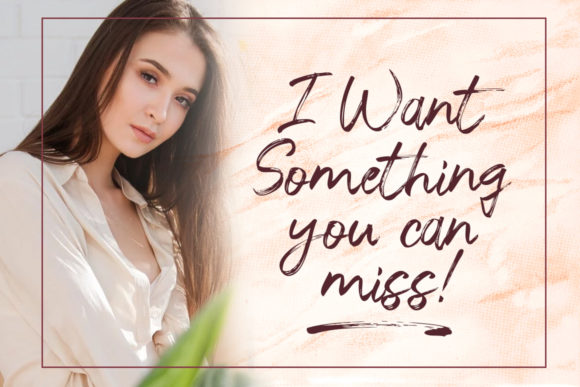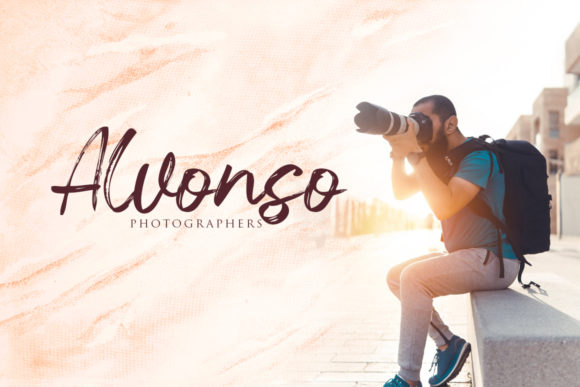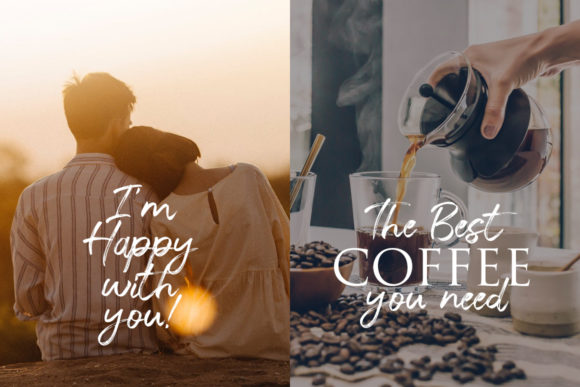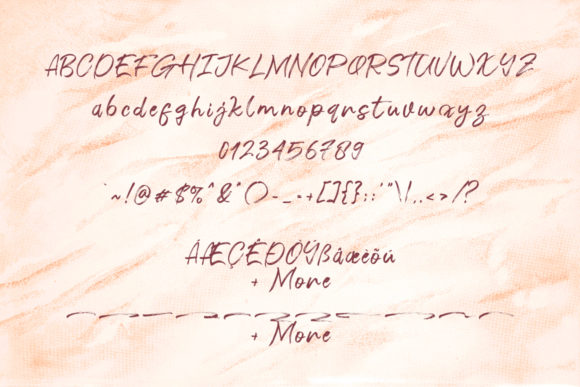
Introduction to Salazur Font
Salazur is a fresh handwritten brush font with an elegant feel.
Whether youโre looking for fonts for Instagram or calligraphy scripts for DIY projects, Salazur will turn any creative idea into a true piece of art .
Key Features of Salazur Font